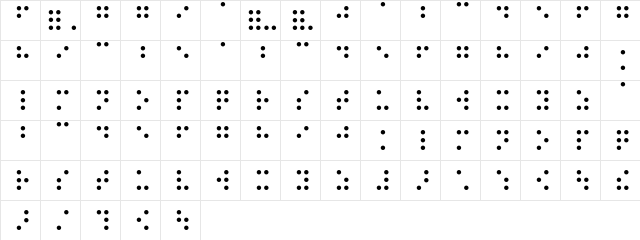
BrailleEF Regular Font Preview
BrailleEF Regular
BrailleEF Regular Font Details
Design Context for BrailleEF Typeface
BrailleEF is a composed and adaptable typeface that performs quietly and consistently across a wide range of design contexts.
Pro Tip: Pair BrailleEF with a font of contrasting weight or personality to build a more expressive typographic hierarchy.